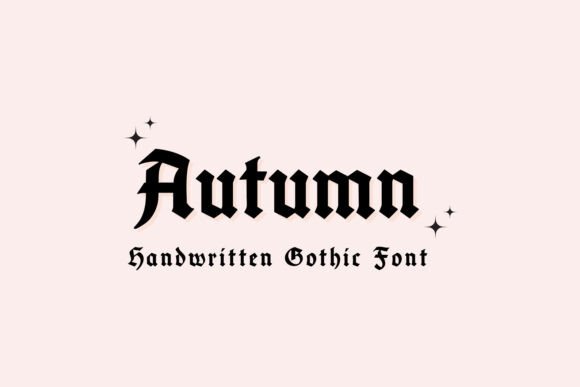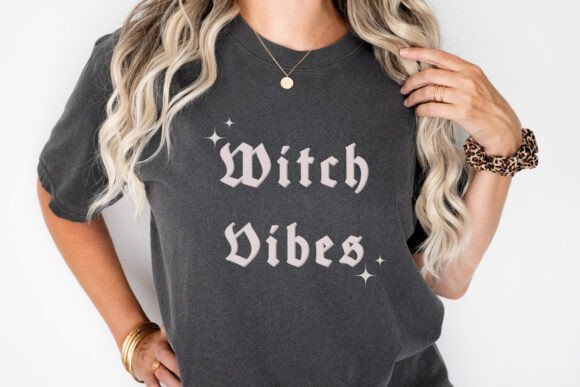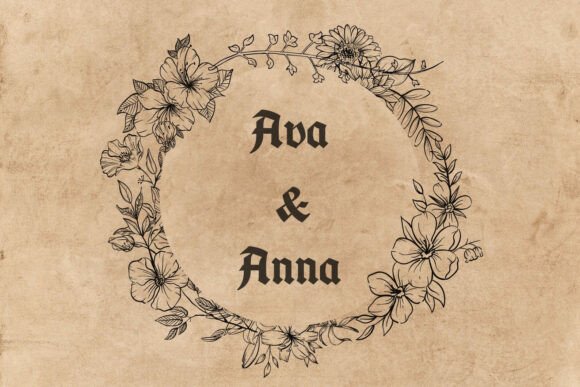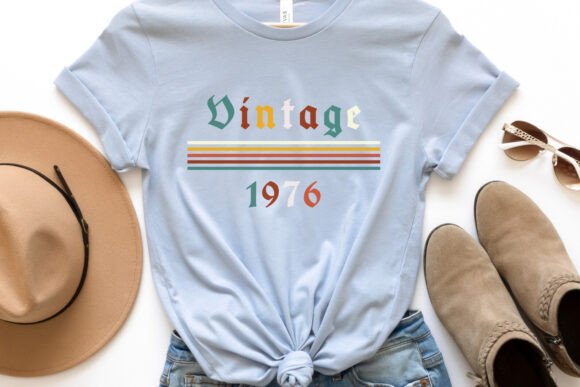
About the Autumn Font
Experience the unique personality of Autumn Font, a font designed for impact. Autumn is a Gothic and Vintage handwritten font.
This font is a hand crafted & it’s perfect for Vintage crafty projects, You can also Use it for branding, decor, invitations, and more!